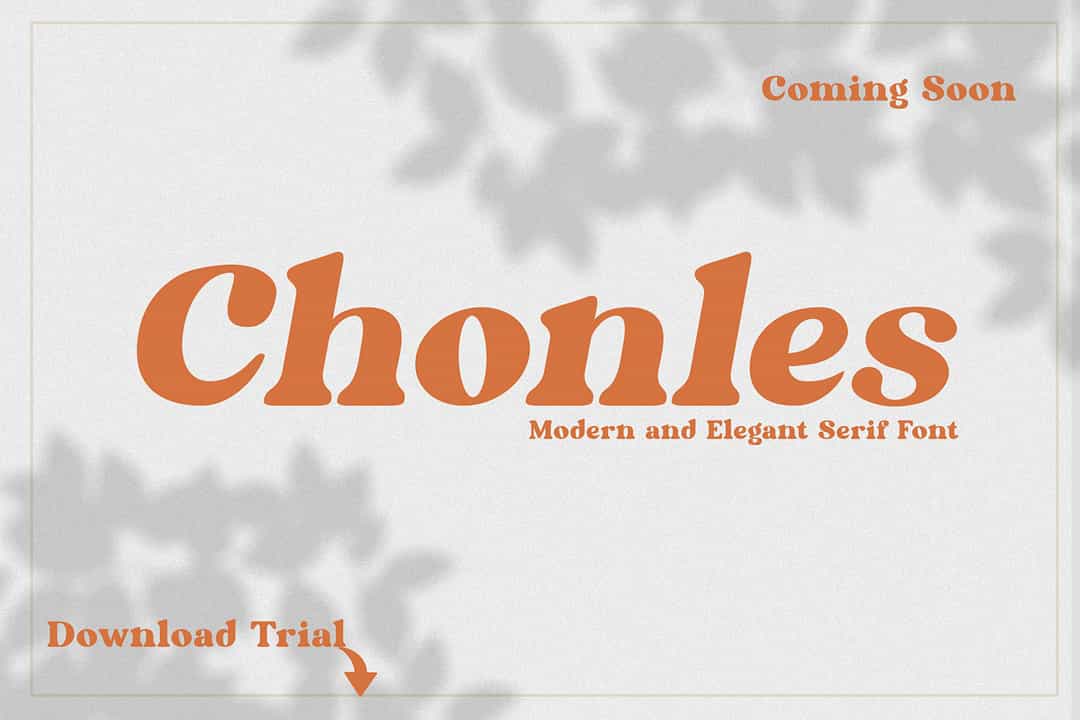
Chonles is a modern basic, simple, wedge-serif typeface, that reflect the characteristics of the Transitional and Contemporary typography. It is a large size x-height, modern sizes, sharp serifs and a high contrast between heavy and thin, with the stress on the vertical.